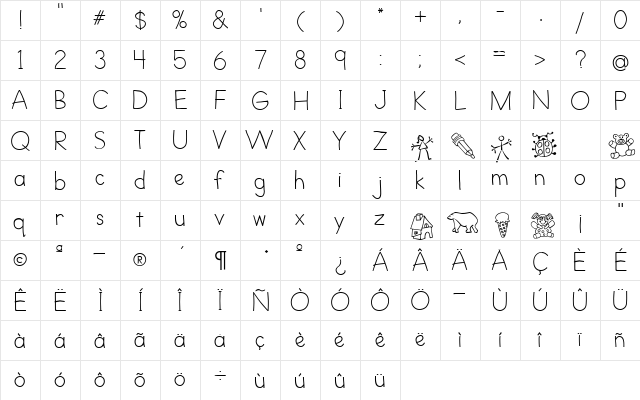
AbcTeacher Regular
Design Context for AbcTeacher Typeface
AbcTeacher takes a measured approach to typography — its balanced proportions and neutral character make it a reliable workhorse for both digital and print work.